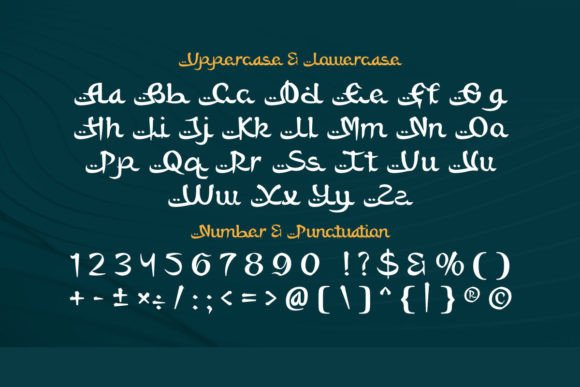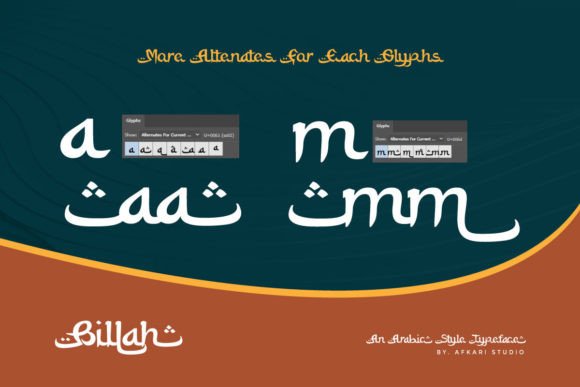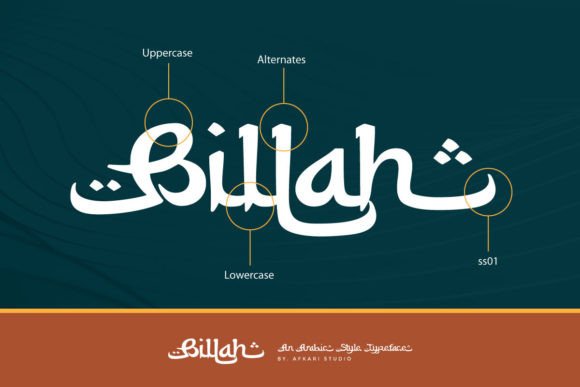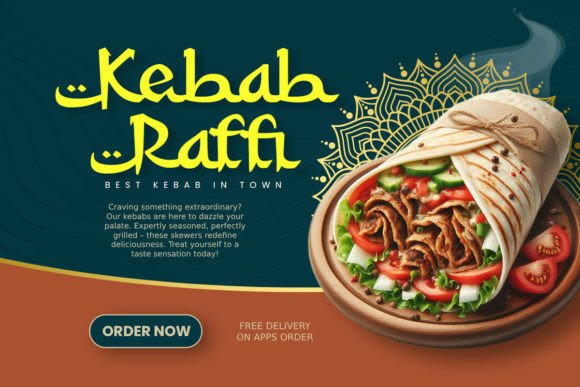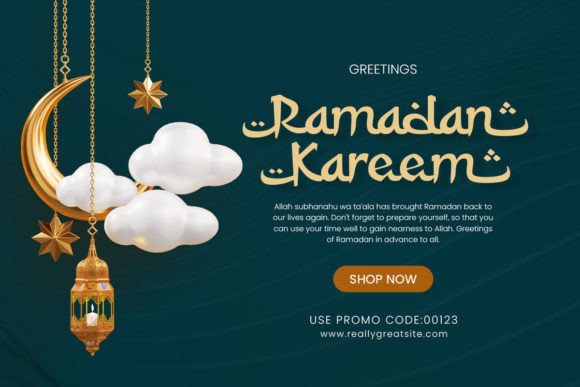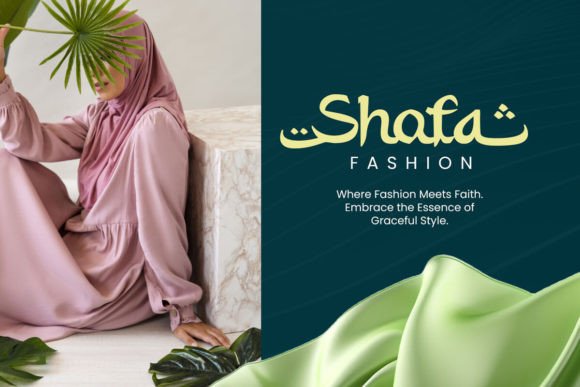
Introducing Billah Font: Elevate Your Designs with Arabic Elegance
In the realm of typography, few typefaces manage to capture the essence of a culture as profoundly as Billah Font. This Arabic-style typeface is a masterful blend of traditional calligraphy and modern design sensibilities, offering a unique and captivating aesthetic for a wide range of creative projects. Whether you’re a designer, crafter, or simply someone who appreciates the beauty of typography, Billah Font is sure to leave a lasting impression.
The Inspiration Behind Billah Font
Billah Font is deeply rooted in the rich cultural heritage of Arabic calligraphy. The designers behind this exquisite typeface have meticulously crafted each character to reflect the elegance and sophistication of Arabic script. The result is a font that not only pays homage to the traditional art of Arabic calligraphy but also brings a fresh and modern twist to the table.
What Makes Billah Font Special?
So, what sets Billah Font apart from other typefaces? Here are a few key features that make it an exceptional choice for designers and crafters:
- Arabic Elegance: Billah Font is designed to infuse every text with an authentic Arabic feel. Its intricate character designs and flowing strokes evoke the beauty and sophistication of Arabic calligraphy.
- International Readability: While Billah Font is deeply rooted in Arabic culture, it also includes thoughtfully designed Latin characters. This ensures that your message can transcend linguistic barriers and reach a global audience.
- Versatility: Billah Font is an incredibly versatile typeface that can be used for a wide range of creative projects. From branding and product packaging to quotes, flyers, posters, logotypes, apparel, and more, this font is the ideal choice for any project that requires a touch of Arabic sophistication.
Applications of Billah Font
Billah Font is a versatile typeface that can be used in various contexts. Here are some ideas to get you started:
- Branding: Use Billah Font to create a unique and memorable brand identity that reflects your company’s values and personality.
- Product Packaging: Add a touch of Arabic elegance to your product packaging and make it stand out on store shelves.
- Quotes and Flyers: Create inspiring quotes and flyers that showcase your message in a beautiful and authentic Arabic style.
- Posters and Logotypes: Design stunning posters and logotypes that incorporate the elegance of Billah Font.
- Apparel: Use Billah Font to create unique and stylish apparel that reflects your personal style or brand identity.
Tips for Using Billah Font
To get the most out of Billah Font, here are some tips to keep in mind:
- Experiment with Font Sizes: Billah Font looks stunning in various font sizes. Experiment with different sizes to find the perfect balance for your design.
- Combine with Other Fonts: Billah Font pairs well with other fonts. Try combining it with a sans-serif font for a modern look or with another script font for a more traditional feel.
- Pay Attention to Kerning: As with any font, kerning is essential to ensure that your text looks professional and polished. Take the time to adjust the kerning to achieve the perfect look.
Billah Font is a captivating Arabic-style typeface that offers a unique and elegant aesthetic for a wide range of creative projects. Its intricate character designs, flowing strokes, and international readability make it an exceptional choice for designers and crafters. Whether you’re looking to add a touch of Arabic sophistication to your branding, product packaging, quotes, flyers, posters, logotypes, apparel, or any other project, Billah Font is the ideal choice. So why wait? Download Billah Font today and elevate your designs to new heights!